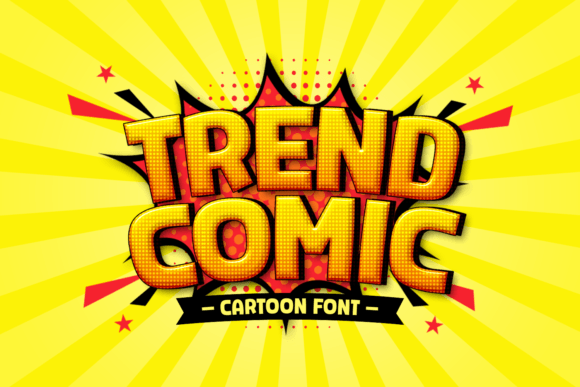
Buckle up for a font-tastic ride with Trend Comic, the display font that's as bold and captivating as a circus act! This thick, cartoon-style font is a visual treat that will make your designs pop like never before.
Unleash your creativity and take your projects to dizzying heights with Trend Comic. Its playful, eye-catching style is perfect for book covers that demand attention, headlines that scream for clicks, and titles that leave an unforgettable impression.
Imagine your designs adorned with Trend Comic's playful charm. Book covers will leap off the shelves, headlines will dance before your eyes, and posters will command attention like never before. This font is your ticket to captivating designs that speak volumes without uttering a word.
Trend Comic's versatility is a designer's dream. Whether you're crafting t-shirts that tell a story, posters that make a statement, or banners that shout from the rooftops, this font has your back. Its bold, cartoonish style adds a touch of whimsy to any project, making it the perfect choice for designs that aim to entertain, inform, and inspire.
So, dive headfirst into the world of Trend Comic and let your creativity run wild. Let your designs take center stage, captivating audiences with their bold, playful charm. With Trend Comic by your side, you'll create designs that make a lasting impression, leaving your audience craving for more.